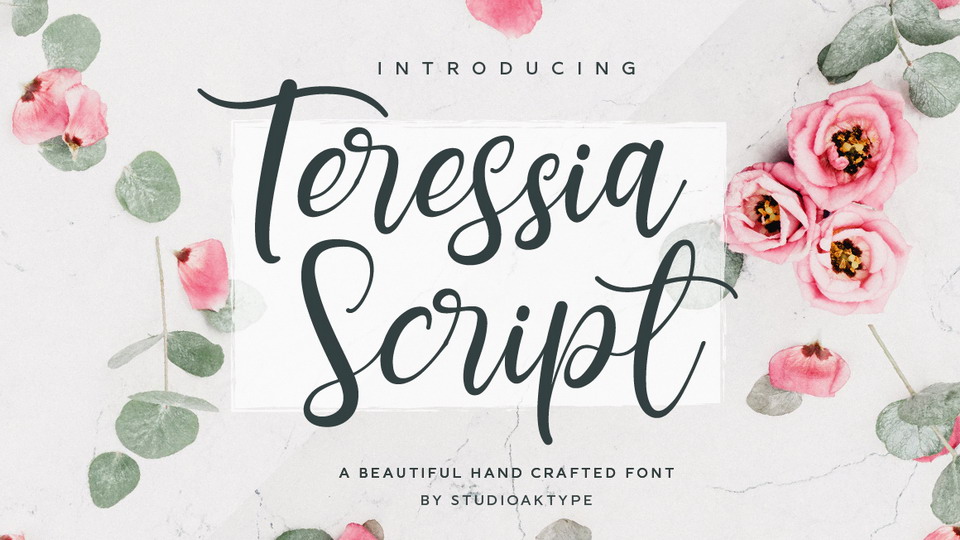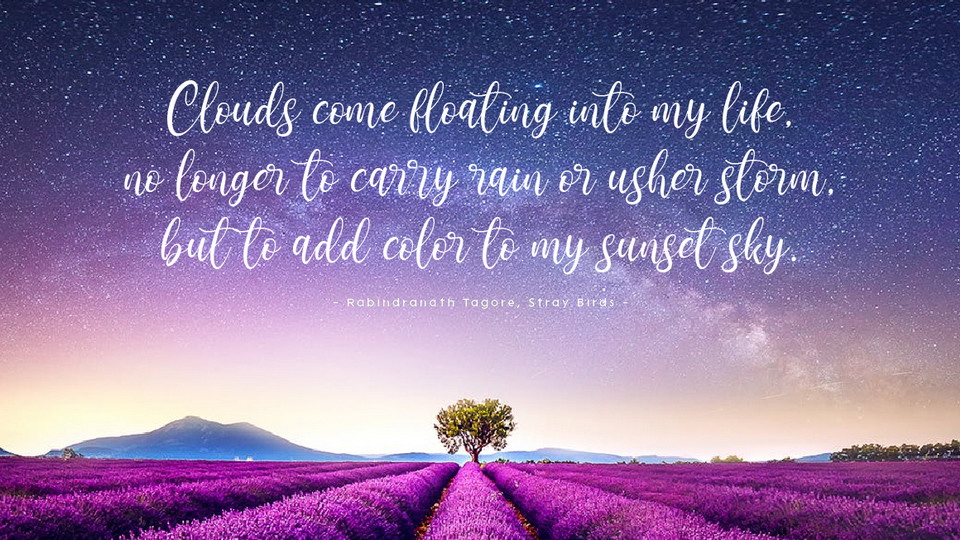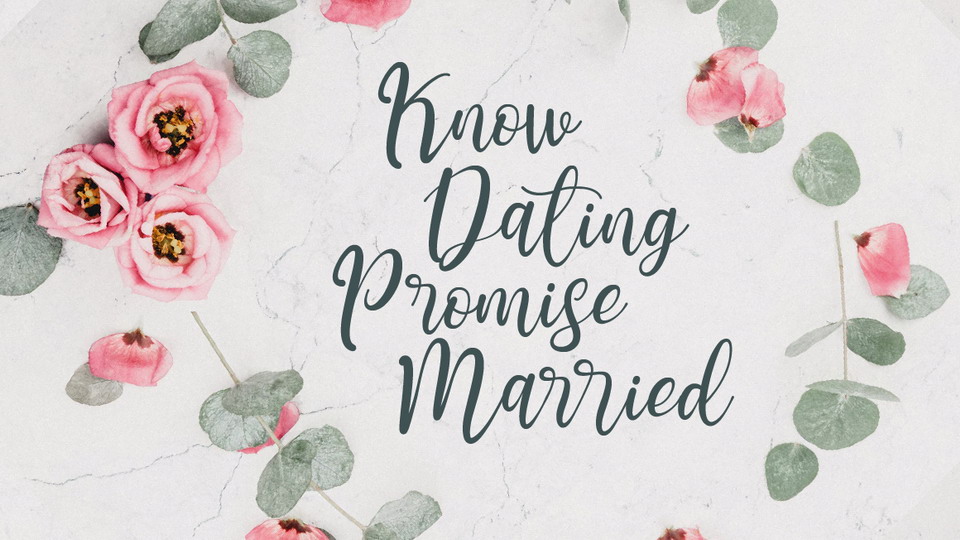
Teressia is a beautiful handwritten font with natural shades, this will give a touch of beautiful flow to any design idea. It has a full set of uppercase, lowercase, ligature, numbers, punctuation & multilingual.
Teressia is perfect for designing your own brand and for other designs, these letters look perfect on all printing techniques, foil emboss, embroidery, and others.